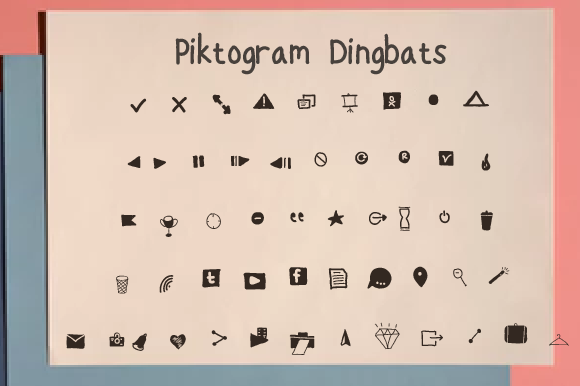
Introduction to Piktogram Font
Piktogram is a unique and interesting dingbats font.
Add the doodles in this font to each of your creative ideas and make them stand out .
Piktogram Font offers exceptional quality and versatility, making it a valuable addition to your design toolkit. Whether you’re creating for personal projects or commercial use, Piktogram Font delivers professional results.